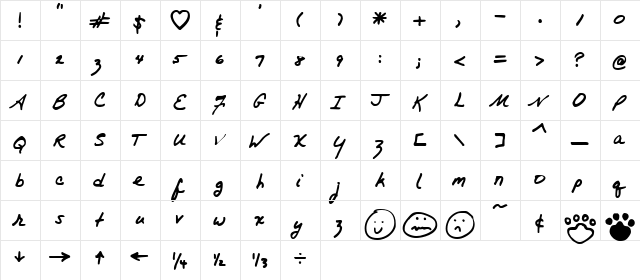
c.j Hand Font Preview
c.j Hand
c.j Hand Font Details
| Style | Hand |
| Foundry | Font Garden |
| Designer | Ellinor Rapp |
Design Context for c.j Typeface
c.j flows with the natural rhythm of handwritten lettering, making it ideal for designs that call for warmth and personal expression.
Font Pairing: Combine c.j with a simple geometric sans for maximum contrast — the tension between flowing curves and clean structure is a classic typographic pairing.
Pro Tip: Use c.j for short runs of text — names, titles, or taglines. Extended body copy in script faces tires the eye quickly.